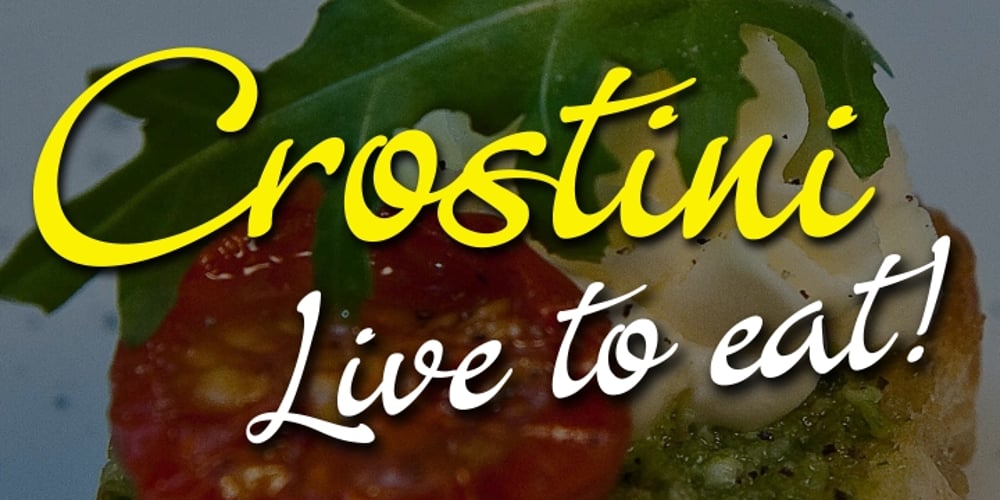
Crostini Font Family was designed by Merle Scholtz and published by Scholtz Fonts. Crostini contains 1 styles and family package options. Crostini was designed as a fun-filled, vigorous brush script, originally intended for restaurant logos and menus. As it evolved, I realized that it was more versatile than I’d thought – great for feminine, girly media as well as for more “in your face” marketing. While the characters are bold and dramatic, they are also feminine and rounded. Crostini contains all the accented characters used in the major European languages. Use Crostini for invitations, scrap-booking, advertising media, fashion media, restaurant media, food media, greeting cards – it’s great fun!